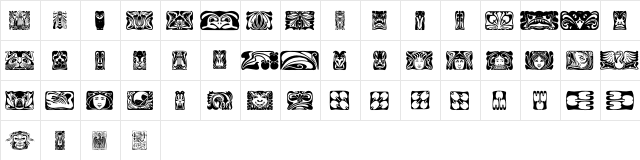
Jugendstil Ornamente Regular
| Designer | Dieter Steffmann |
Design Context for Jugendstil Ornamente Typeface
Jugendstil Ornamente is built around its visual character rather than neutral utility — its distinctive forms are designed to make an impression at display sizes.
Font Pairing: Pair with a clean neutral sans-serif for body copy to let Jugendstil Ornamente's character lead without overwhelming the composition.
Pro Tip: Treat Jugendstil Ornamente as the centrepiece of your typographic hierarchy. One strong heading set in a decorative face can carry an entire layout.